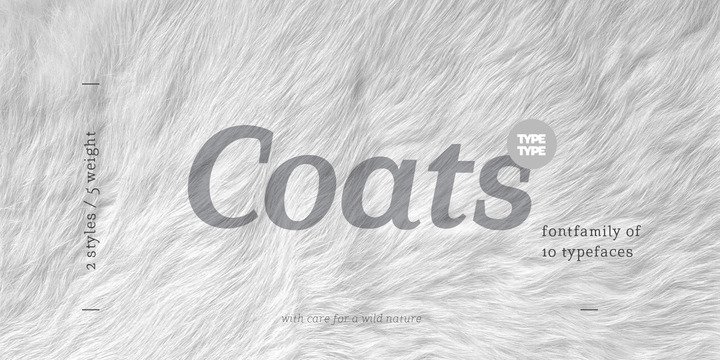
TT Coats Font
We’ve created a hand written hand-made antiqua with a lively character for short emotional inscriptions. TT Coats will warm you up in a cold day and add a little kindness and easiness into any layout. Lines typed with this typeface start “trembling” in long texts, so be careful and use this family for special occasions and in small amounts.